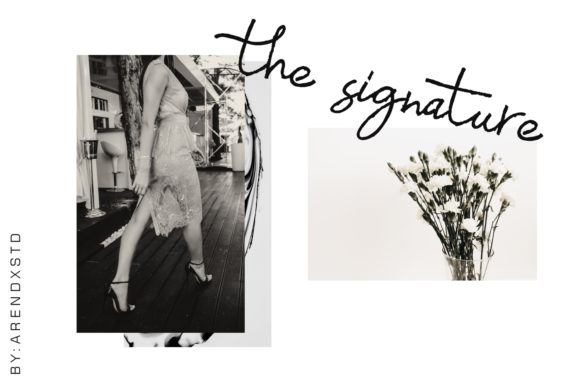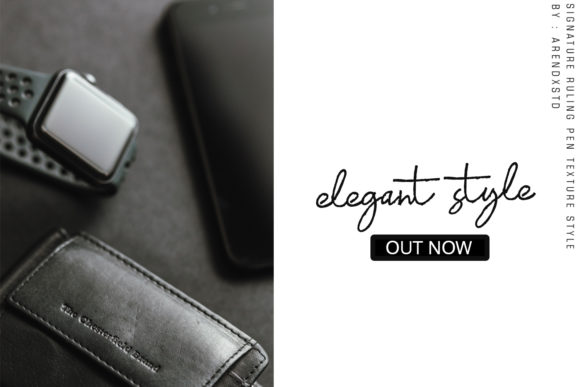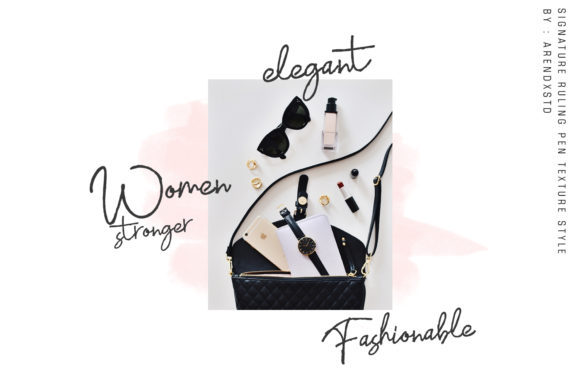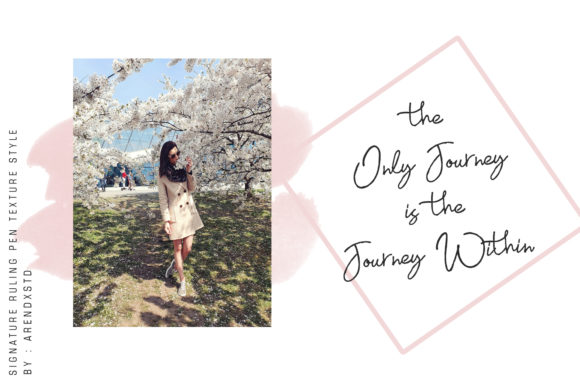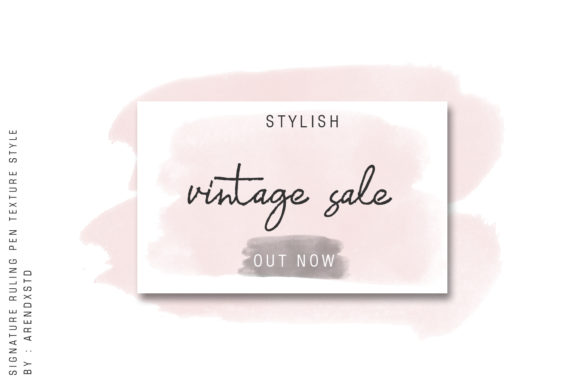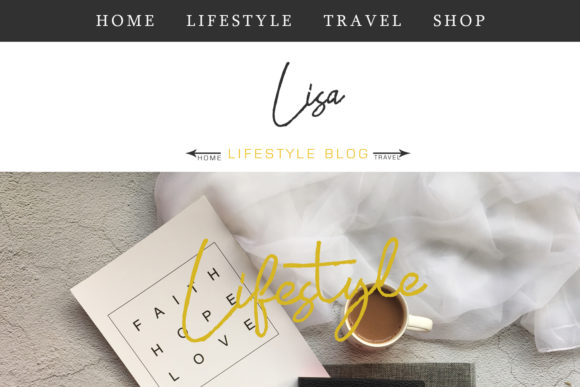
Sleeping Wild Font
About Sleeping Wild Font
Sleeping WIld is a stunning handwritten font with a personal charm. It will differentiate any design project with its unique style.